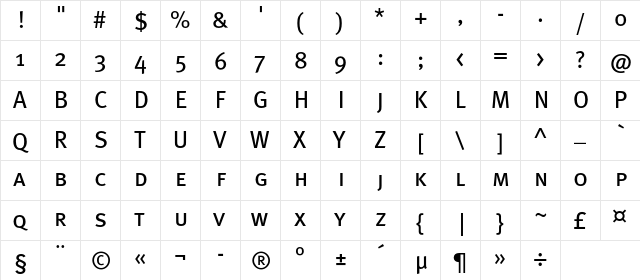
MetaBookCapsC Regular
Design Context for MetaBookCapsC Typeface
MetaBookCapsC takes a measured approach to typography — its balanced proportions and neutral character make it a reliable workhorse for both digital and print work.